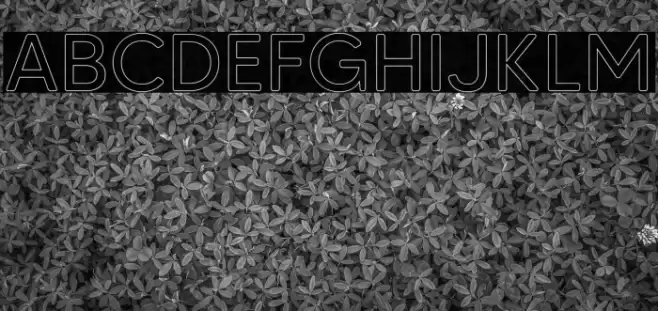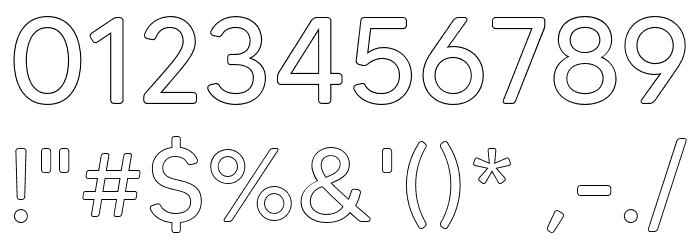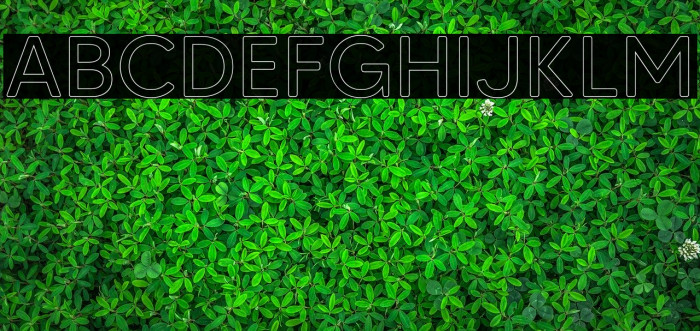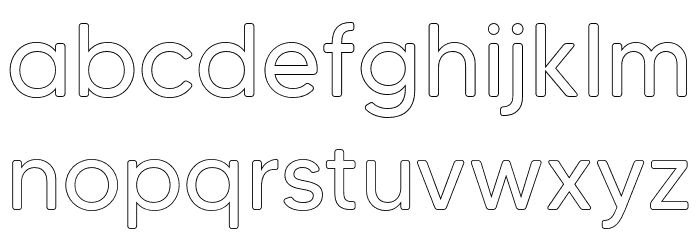
MADETommySoftOutline Font
MADETommySoftOutline Description
This font features a clean, modern outline style with a sans-serif design. The characters are evenly spaced and maintain a consistent stroke width throughout, giving it a balanced and harmonious appearance. The uppercase and lowercase letters are well-proportioned, making it versatile for various design applications. The numerals and special characters are clear and legible, enhancing its usability in both digital and print media. Its simplicity and clarity make it suitable for a wide range of projects, from branding to editorial design.
A modern, clean sans-serif outline font with consistent stroke width from Uncategorized fonts.